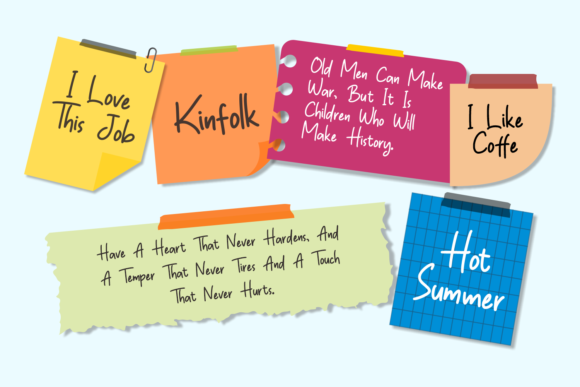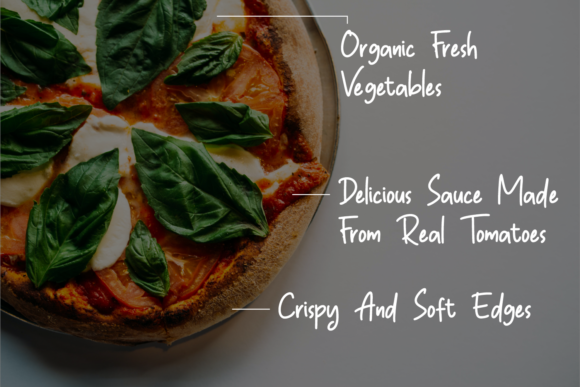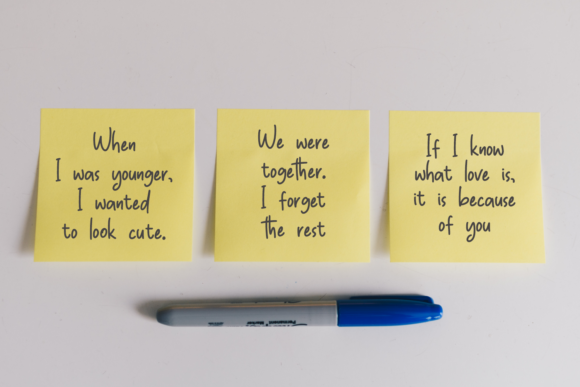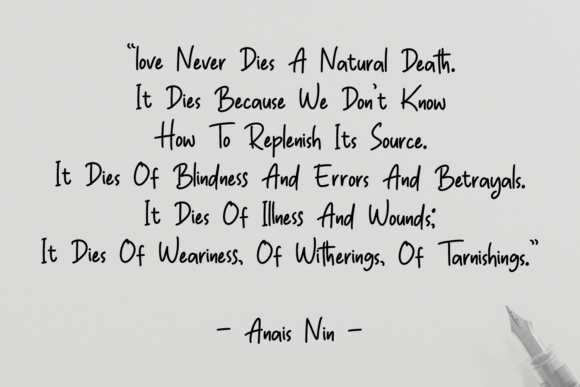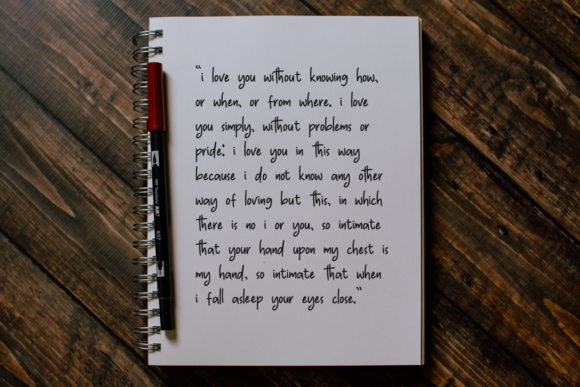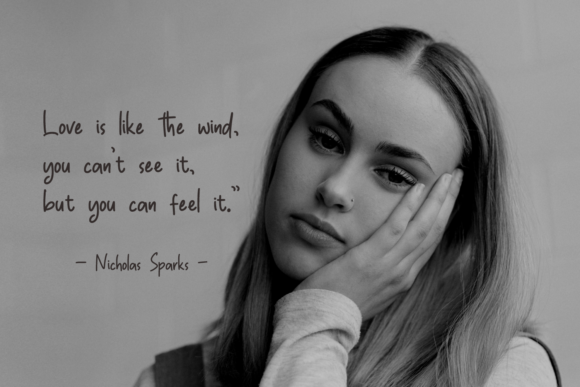
The Elusive Font: A Designer’s Journey to Discovering Bookstory
I still remember the frustration of working on a project, hours spent crafting the perfect design, only to be held back by one thing: the font. My client wanted something elegant, something that would make their brand stand out, but everything I tried seemed to fall flat. That was until I stumbled upon Bookstory, a delicate script font that would change the game for me and countless other designers, crafters, and creative hobbyists out there.
Bookstory is more than just a font; it’s a tool that can elevate any creative project. Here’s what I love about it:
- ✨ Elegant and Refined: Bookstory exudes sophistication, making it perfect for projects that require a touch of luxury.
- ✅ PUA Encoded: The font’s PUA encoding means easy access to all glyphs and swashes, allowing for endless creative possibilities.
- ✅ Versatile: Whether you’re designing for Instagram, crafting a DIY project, or working on a professional client’s brand, Bookstory adapts seamlessly.
- 🤔 Learning Curve: With so many glyphs and swashes available, it might take some time to get familiar with Bookstory’s full capabilities.
- ⚠️ Overuse: Given its beauty, it’s easy to overuse Bookstory. Remember, sometimes less is more.
The Story Behind Bookstory: A Glimpse into Its Creation
Bookstory was crafted with the designer in mind, someone who understands the value of a beautiful font in elevating a project from good to exceptional. Its creator aimed to produce a font that was not only elegant but also versatile, capable of adapting to various design needs. The result is a font that resonates with designers and hobbyists alike, offering a blend of sophistication and creativity.
| Author | Mozatype |
Q: Is Bookstory suitable for professional projects?
A: Absolutely. Its elegance and versatility make it an excellent choice for professional branding, marketing materials, and more.